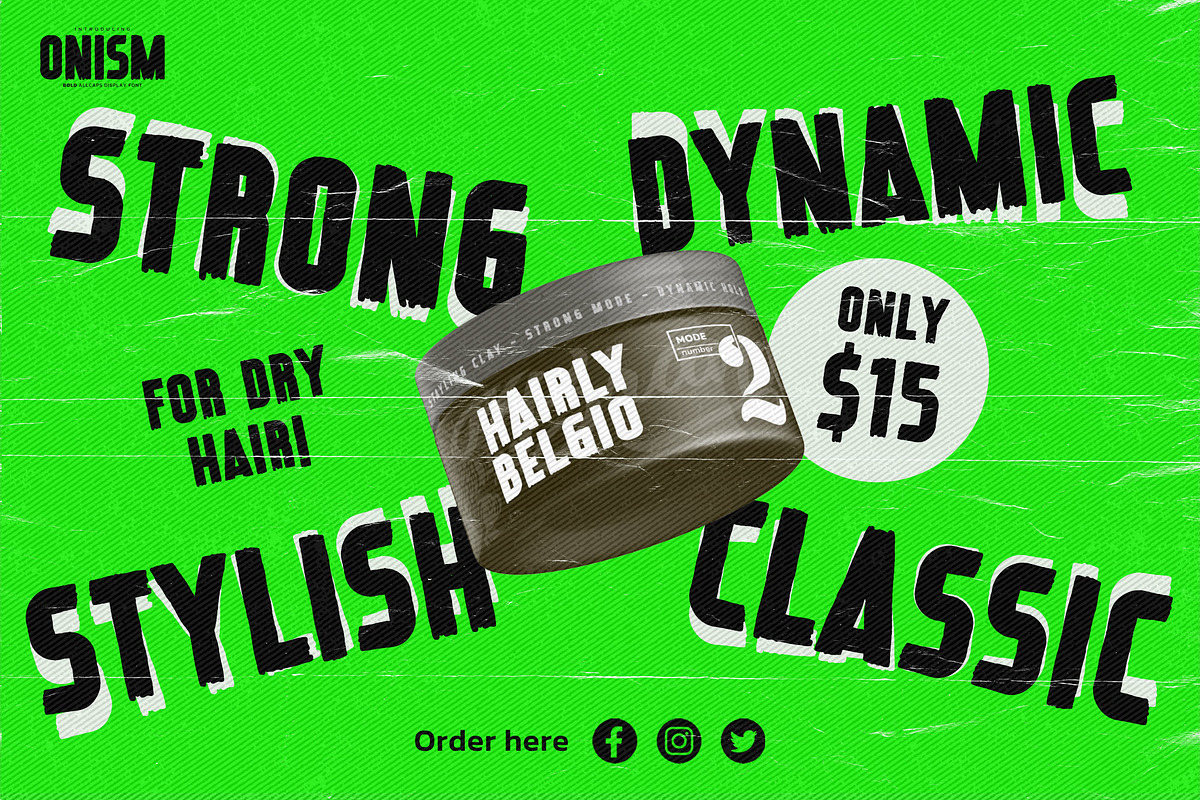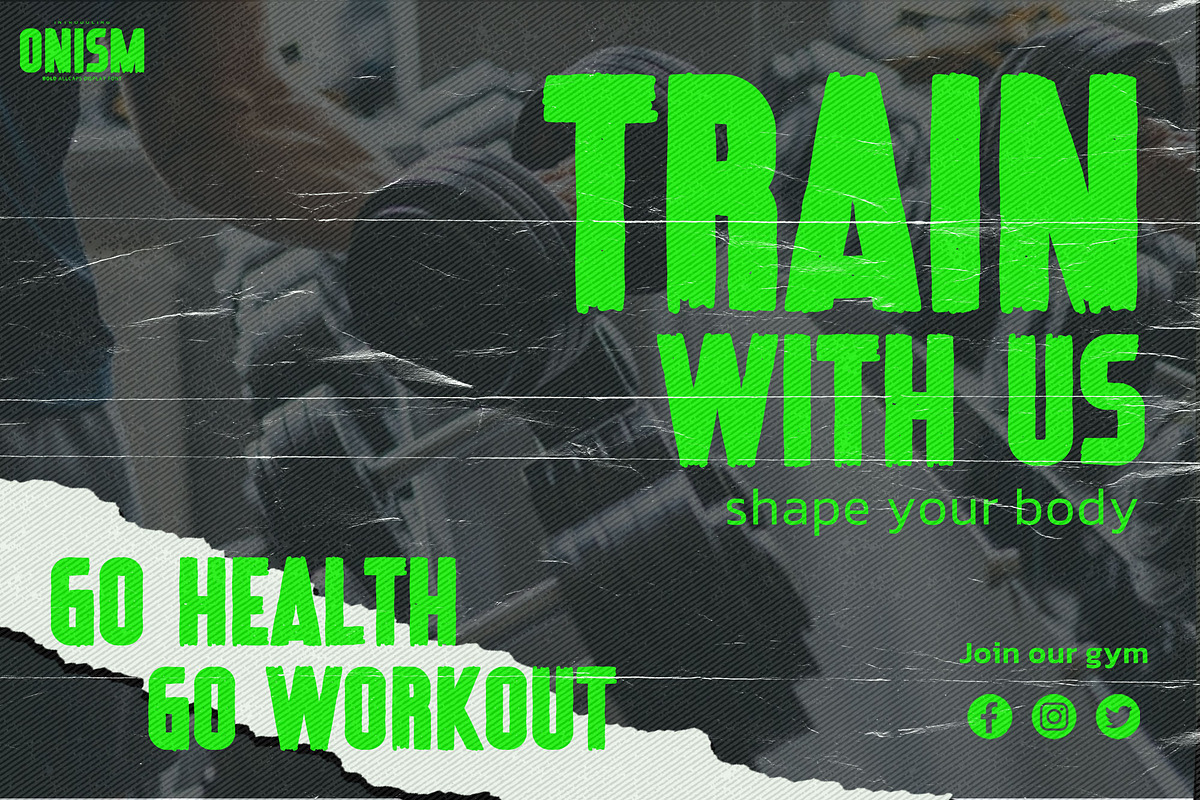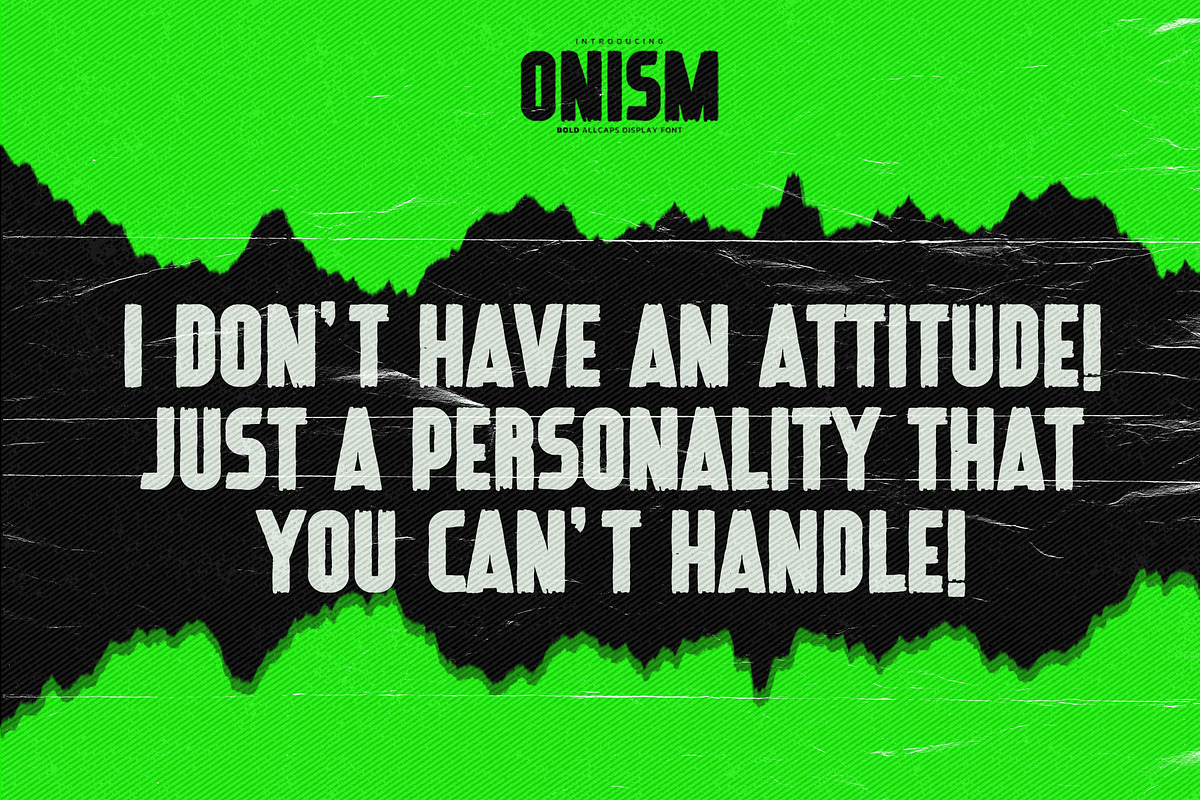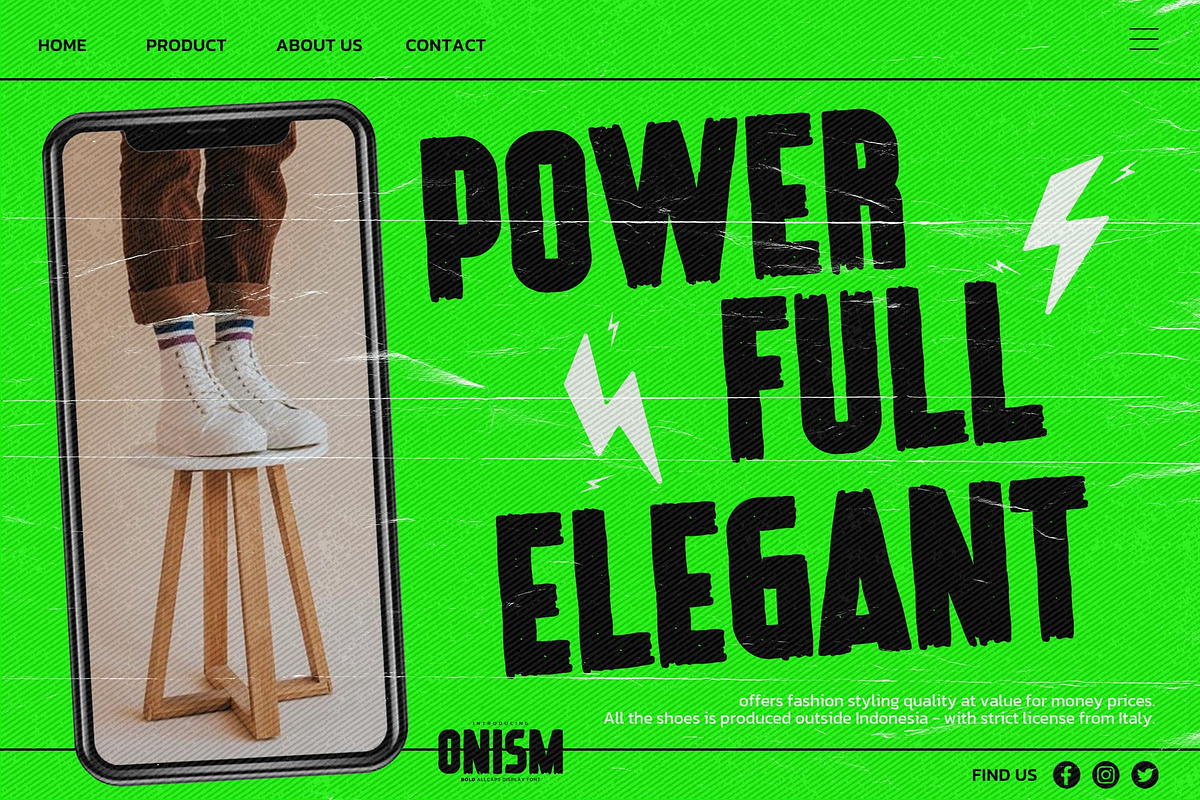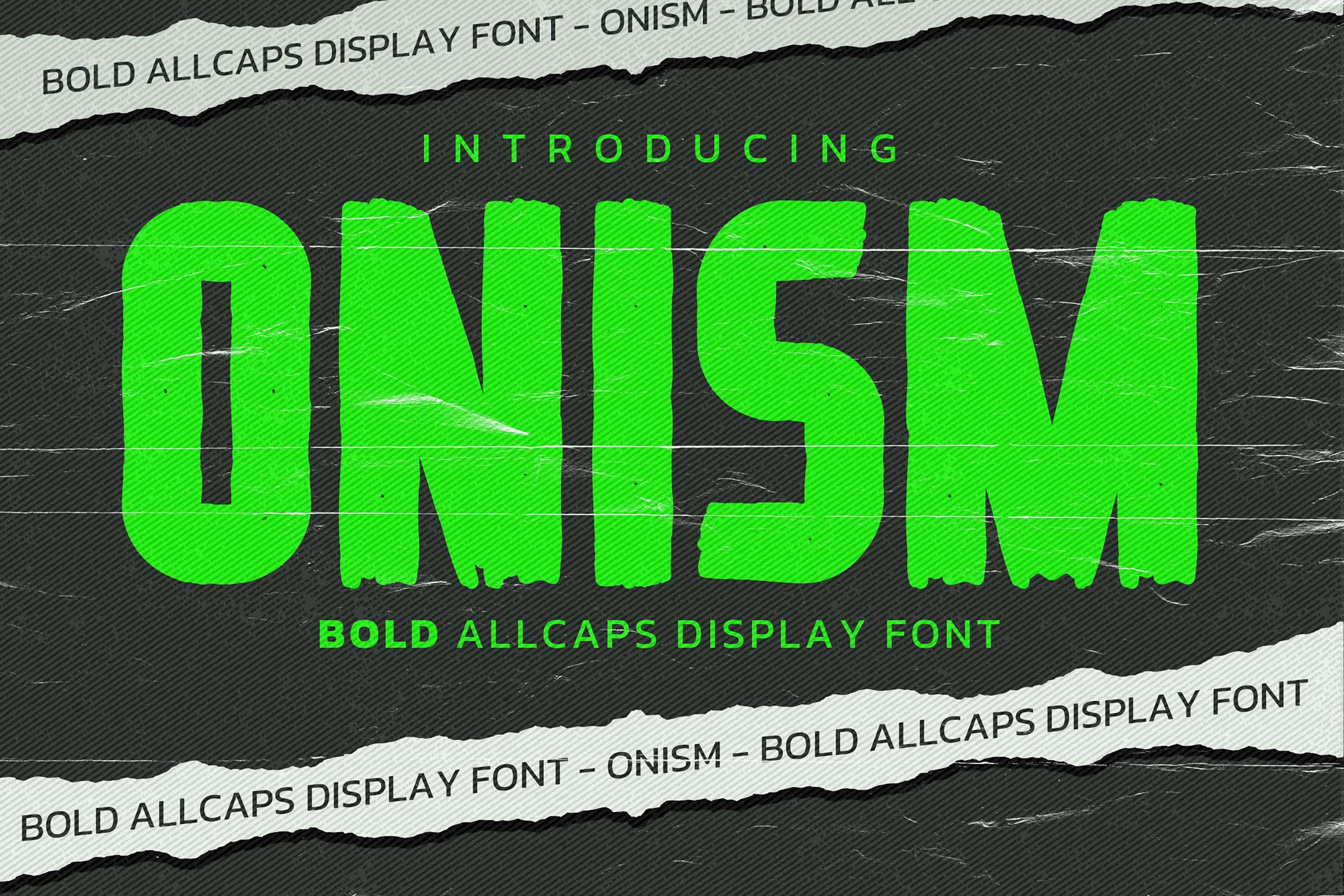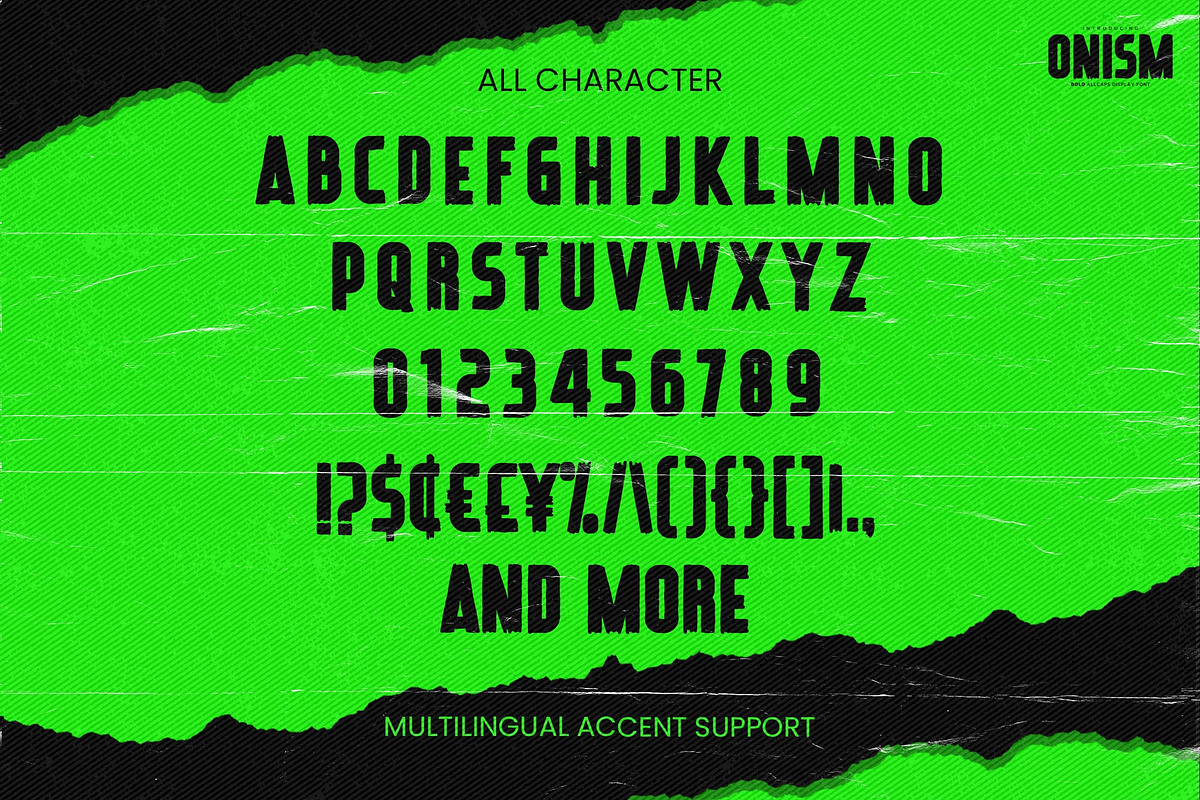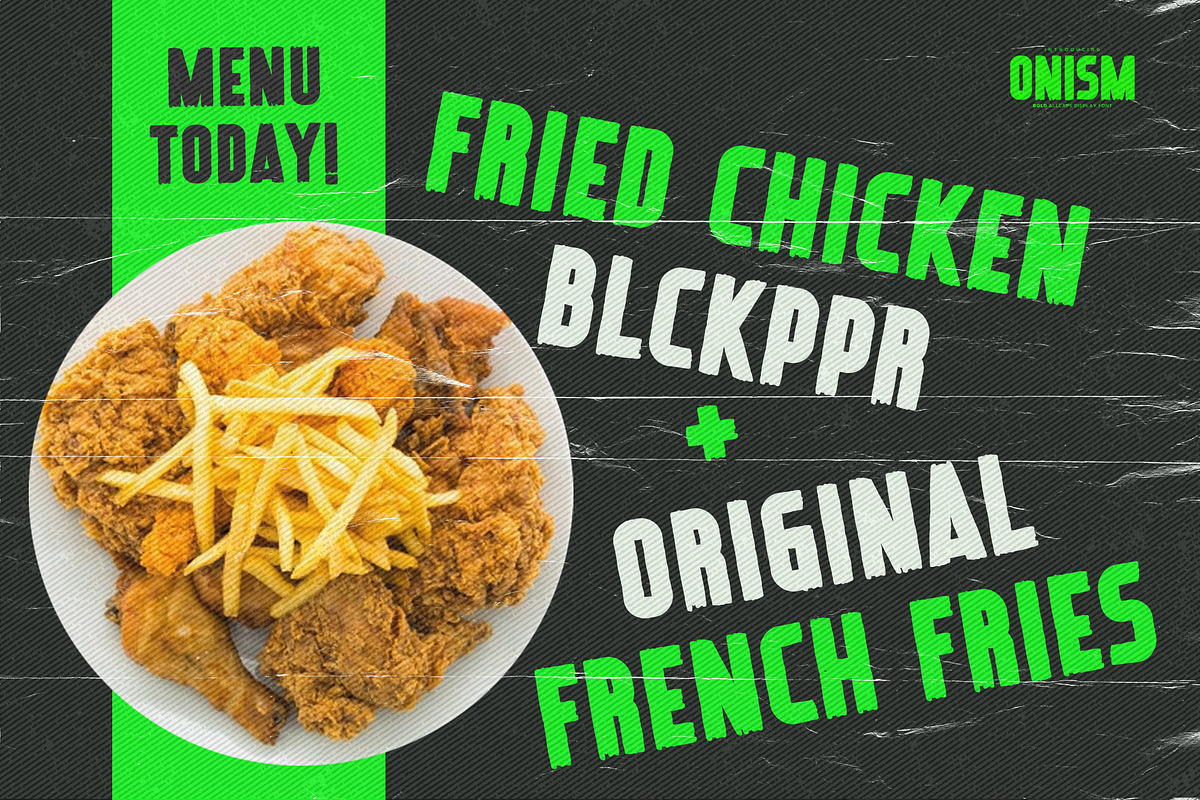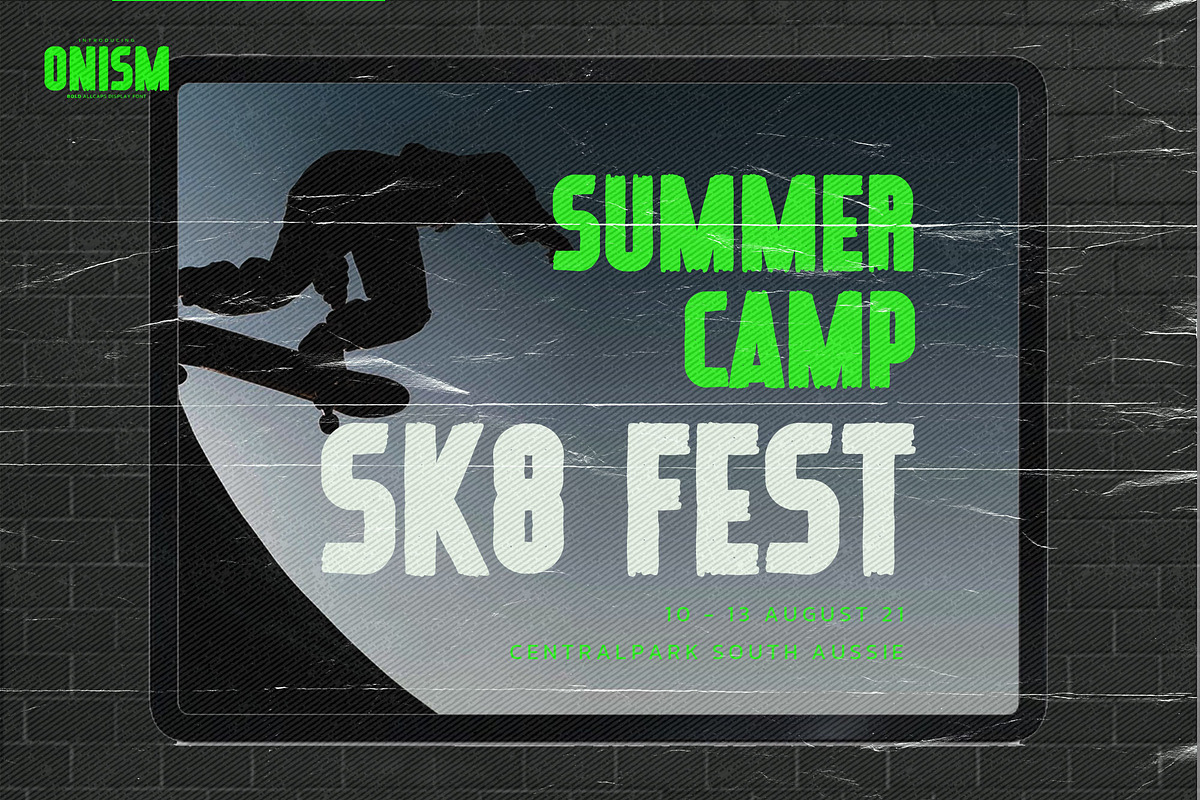
Onism – Bold Allcaps Display Font
Onism is a bold all-caps display typeface designed to deliver raw strength, visual impact, and unapologetic character in every composition. Featuring heavy letterforms, rough edges, and powerful proportions, Onism commands attention with a loud, confident presence—perfect for designs that need to stand out instantly.
Crafted with a strong industrial feel and expressive textures, this typeface embraces imperfection and attitude. Its chunky shapes and solid construction create a striking rhythm, making Onism ideal for modern branding, statement headlines, and bold visual storytelling.
GREAT FOR :
• streetwear branding, music labels, creative studios & edgy brands • posters, flyers, album covers & promotional graphics • headlines, titles, banners & bold typography layouts • logos, packaging designs & impactful brand identities • social media visuals, quotes, merchandise & graphic content
STYLE & FEEL
bold display • all caps • strong • edgy • modern • raw • industrial • impactful